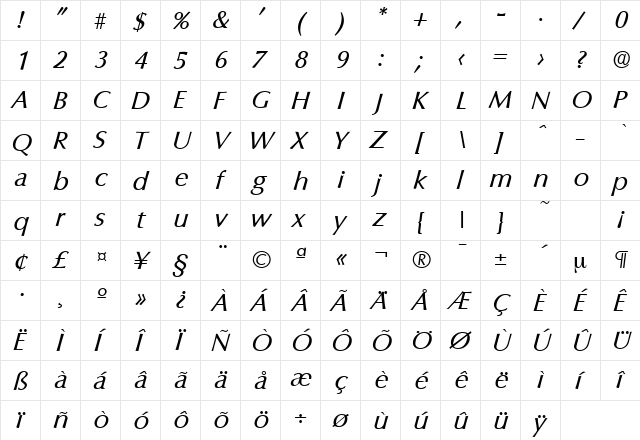
Columbia-Serial RegularItalic
Design Context for Columbia-Serial Typeface
Columbia-Serial offers clean, dependable letterforms without strong stylistic allegiance, making it a practical choice for designers who need flexibility. Its italic angle brings a sense of urgency and motion to the letterforms.
Pro Tip: Try Columbia-Serial for annotation and caption copy alongside an upright companion — the contrast in angle creates a dynamic but ordered typographic system.